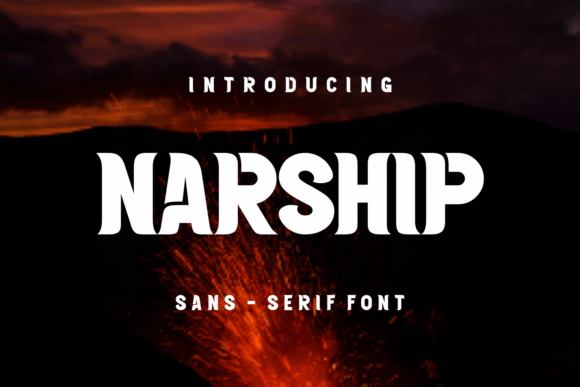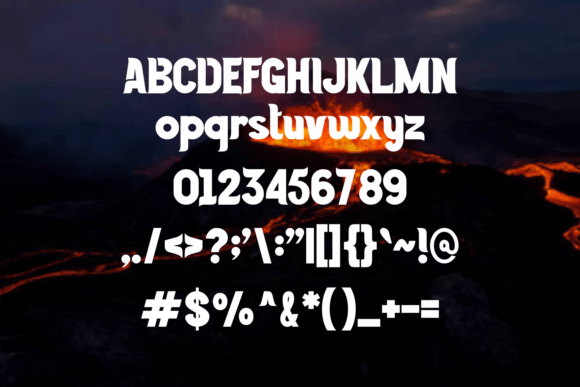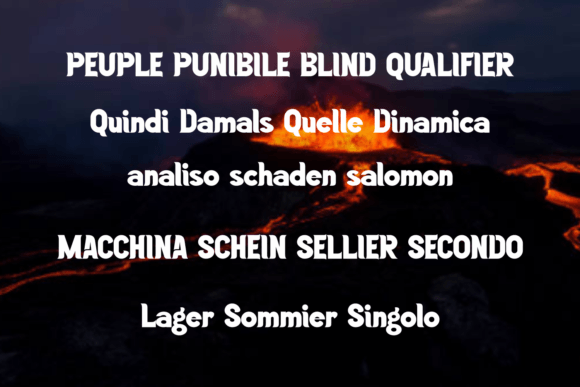
Narship
Narship: A Fancy and Modern Slab Serif Font
Narship is a fancy and modern slab serif font optimized for both print and screen applications. This versatile typeface brings sophisticated style to various creative projects, from branding to large-scale artwork.
Key Features of Narship
• Fancy Design: Offers sophisticated, modern letterforms.
• Dual Optimization: Works well in both print and screen contexts.
• Versatile Appeal: Adapts to numerous design applications.
• Modern Character: Brings contemporary style to designs.
Best Uses for Narship
Thanks to its versatile characteristics, Narship works especially well for:
When using Narship in your designs, keep these tips in mind:
• Try it for headlines or display text to showcase its fancy style.
• Use its modern character for contemporary projects.
• Take advantage of its print/screen versatility.
• Let its sophisticated appeal enhance various applications.
To sum up, Narship is an excellent choice for designers seeking a fancy and modern slab serif font. Its versatility makes it perfect for various creative projects. Whether you’re creating branding materials, designing magazines, or developing large-scale artwork, Narship offers the perfect blend of contemporary style and sophisticated appeal.
Furthermore, Narship’s distinctive design allows it to shine in contexts where both modernity and elegance are key. From name cards to t-shirt designs, this font can elevate your projects with its refined style. Also, its fancy yet readable appearance works particularly well in designs that aim to make a sophisticated impact.
In conclusion, Narship truly captures the essence of modern sophistication in slab serif typography. Its versatility across different applications shows how well it can serve various creative needs. Therefore, for those wanting to add a touch of fancy modernity to their work, Narship can enhance any design with its distinctive style. Ultimately, it’s perfect for designers aiming to make an elegant, contemporary impact across both print and digital projects.